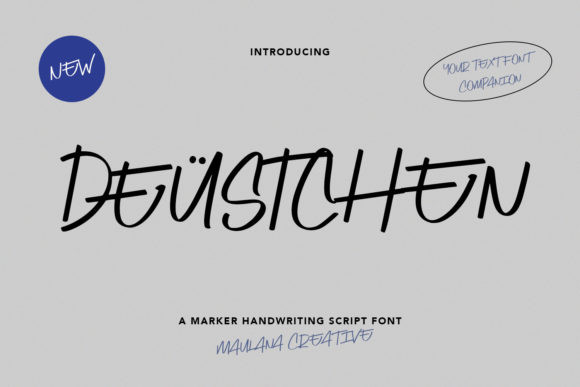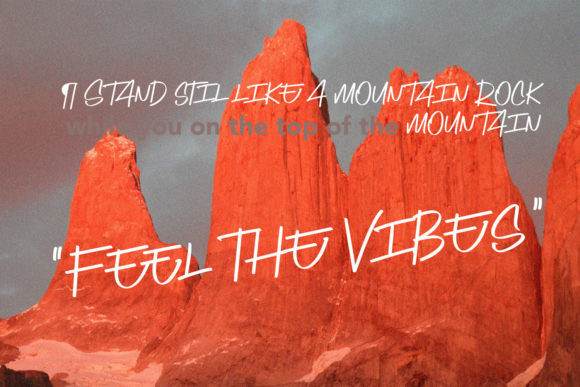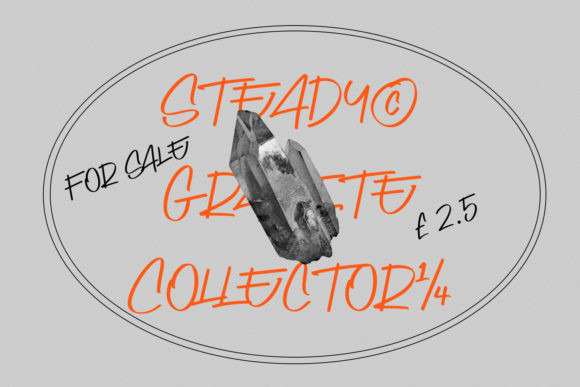
Deustchen Font
Deustchen is a cool, readable and a bit quirky handwritten font. No matter the topic, this font will be an incredibly asset to your fonts’ library, as it has the potential to elevate any creation.